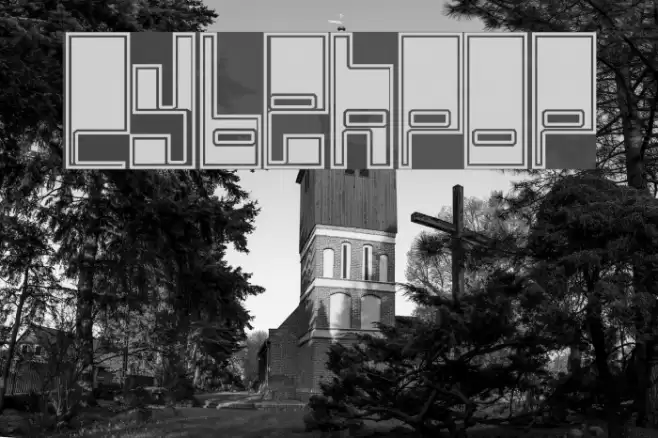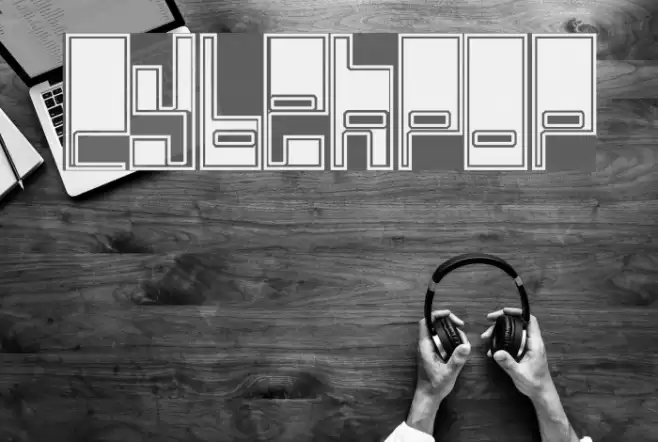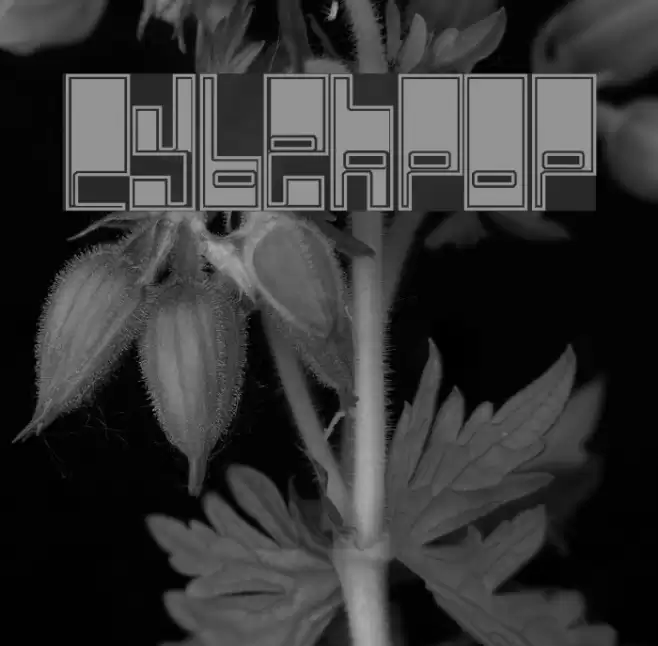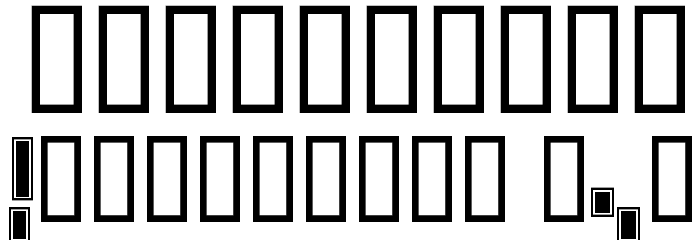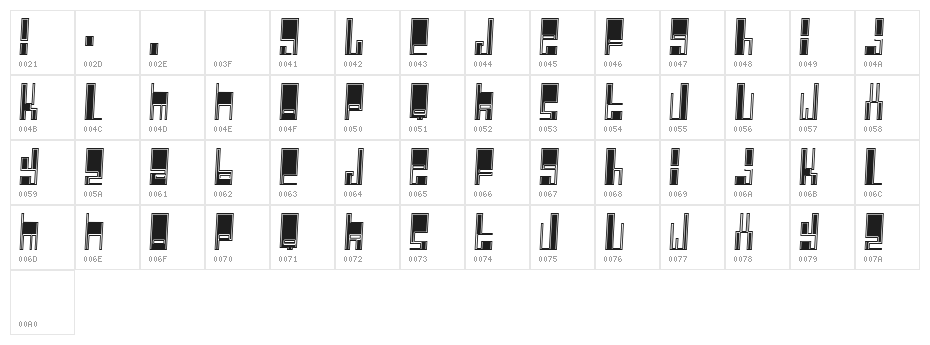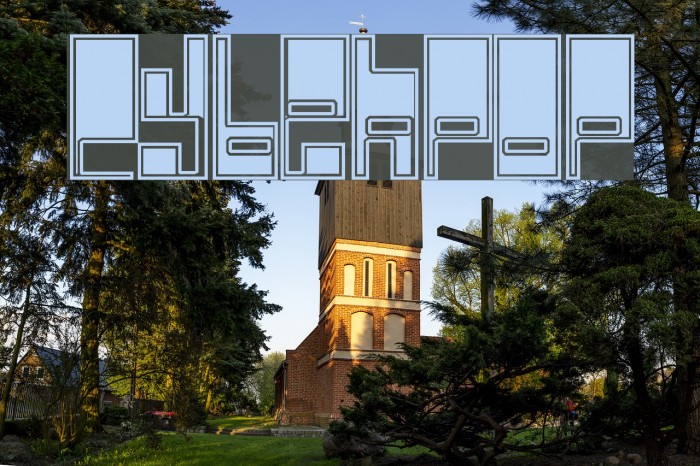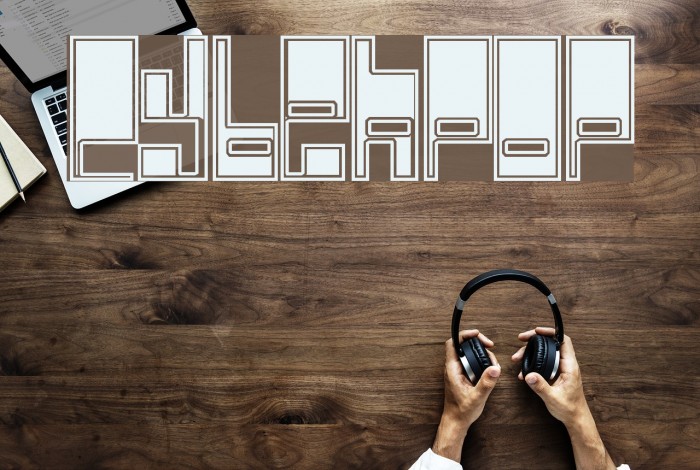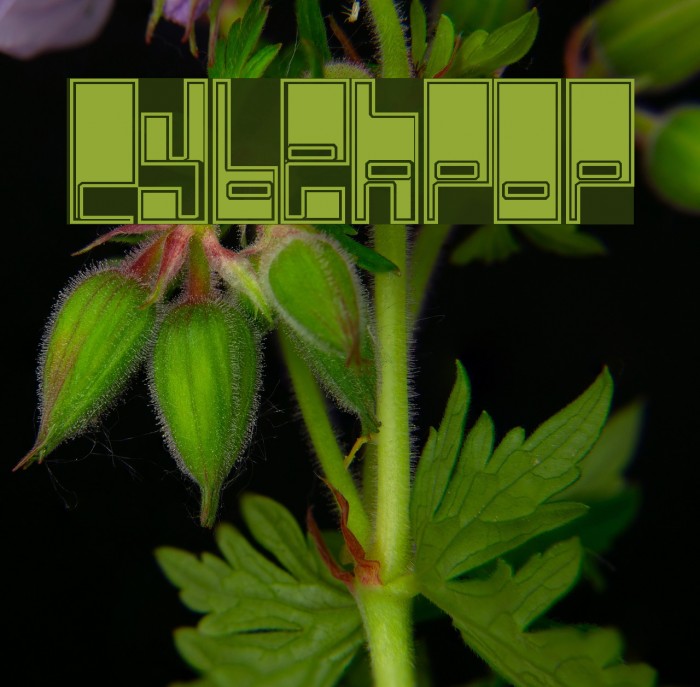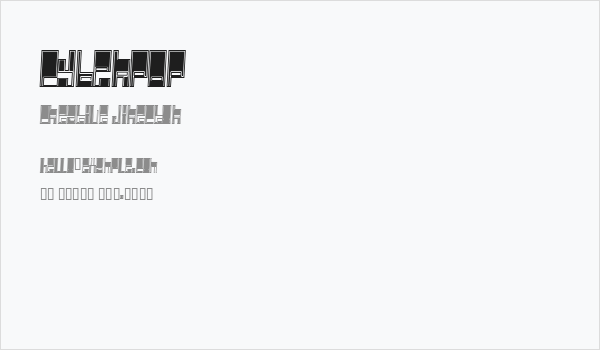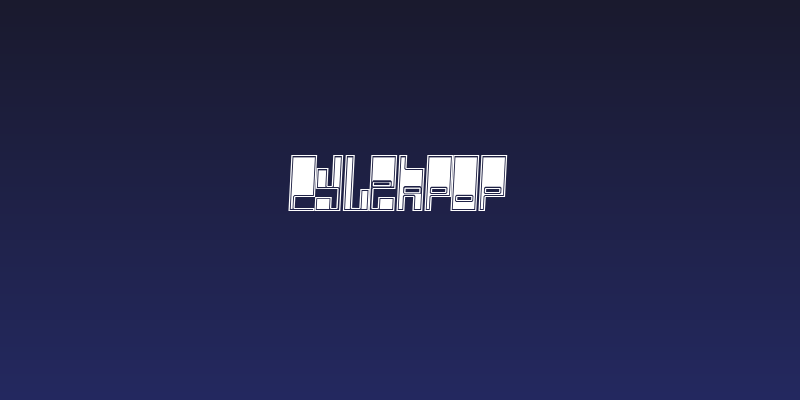
Cyberpop Font
Cyberpop Description
This font features a futuristic and geometric design, characterized by its bold, block-like structure. Each character is enclosed within a rectangular frame, creating a distinct and modern appearance. The letters are composed of thick, solid lines with a consistent width, giving them a uniform and structured look. The use of negative space within the characters adds a unique visual interest, enhancing the overall aesthetic. This font's style is reminiscent of digital or cyber themes, making it suitable for projects that require a contemporary and tech-inspired feel.
A futuristic, geometric font with bold, block-like characters enclosed in rectangular frames from Futuristic fonts.
- Proposed Projects: Ideal for tech-related branding, digital media, video game titles, and futuristic-themed posters.